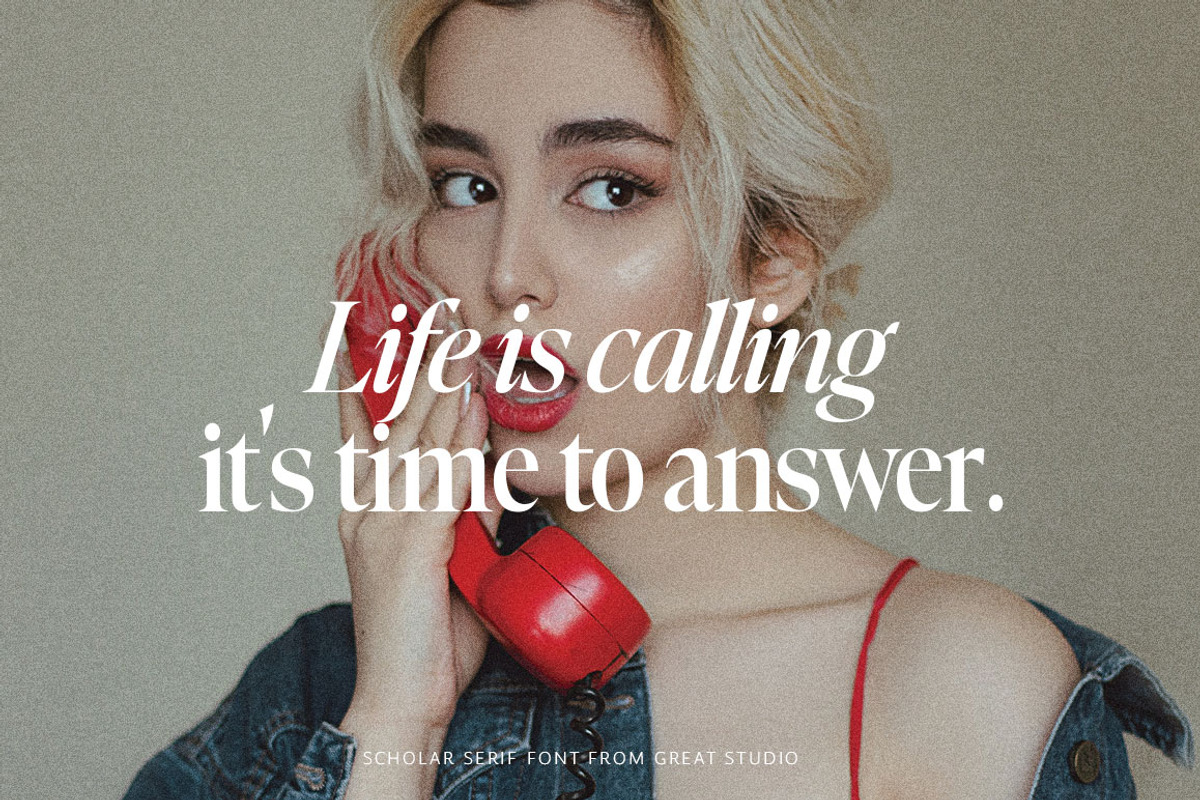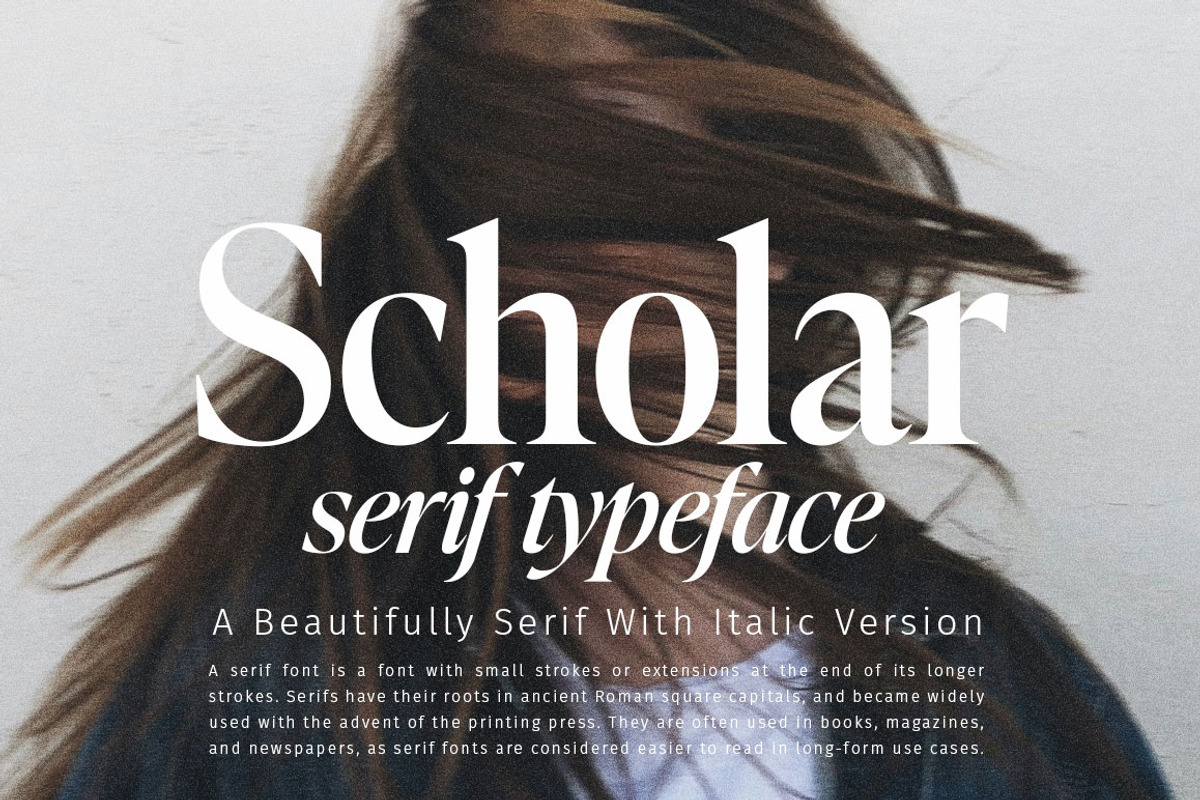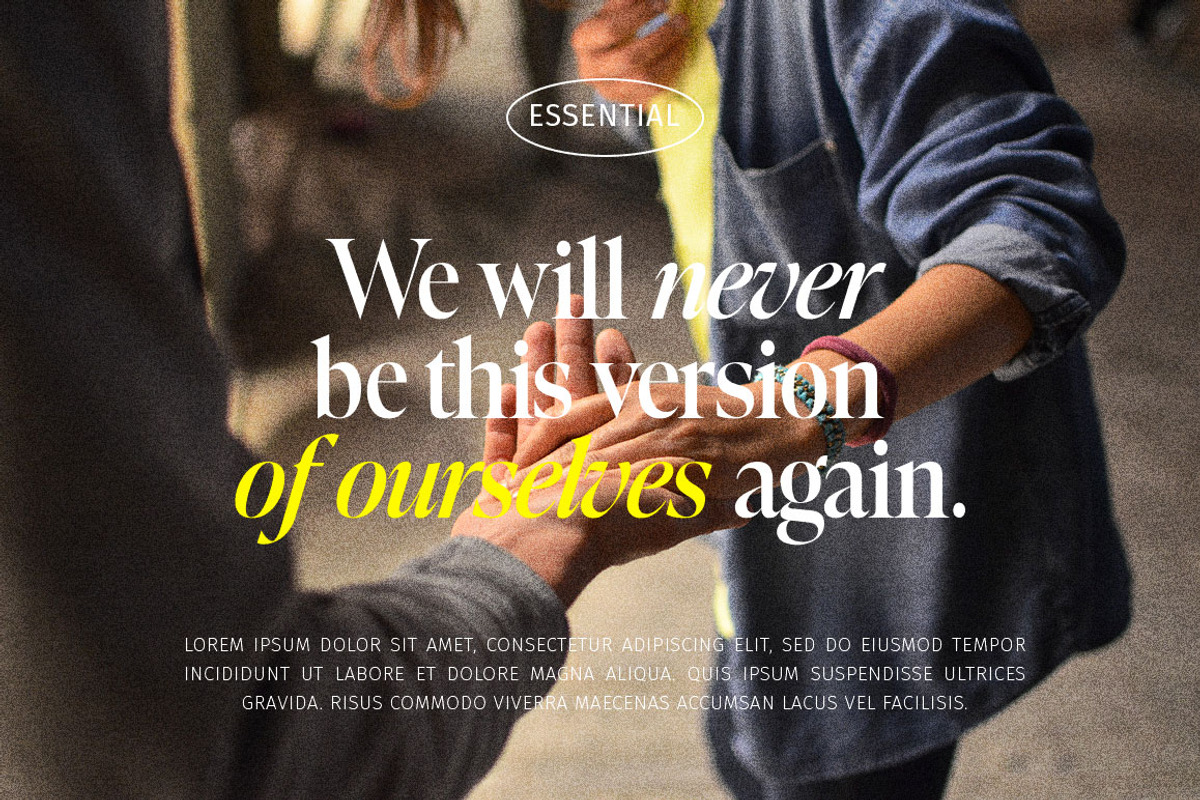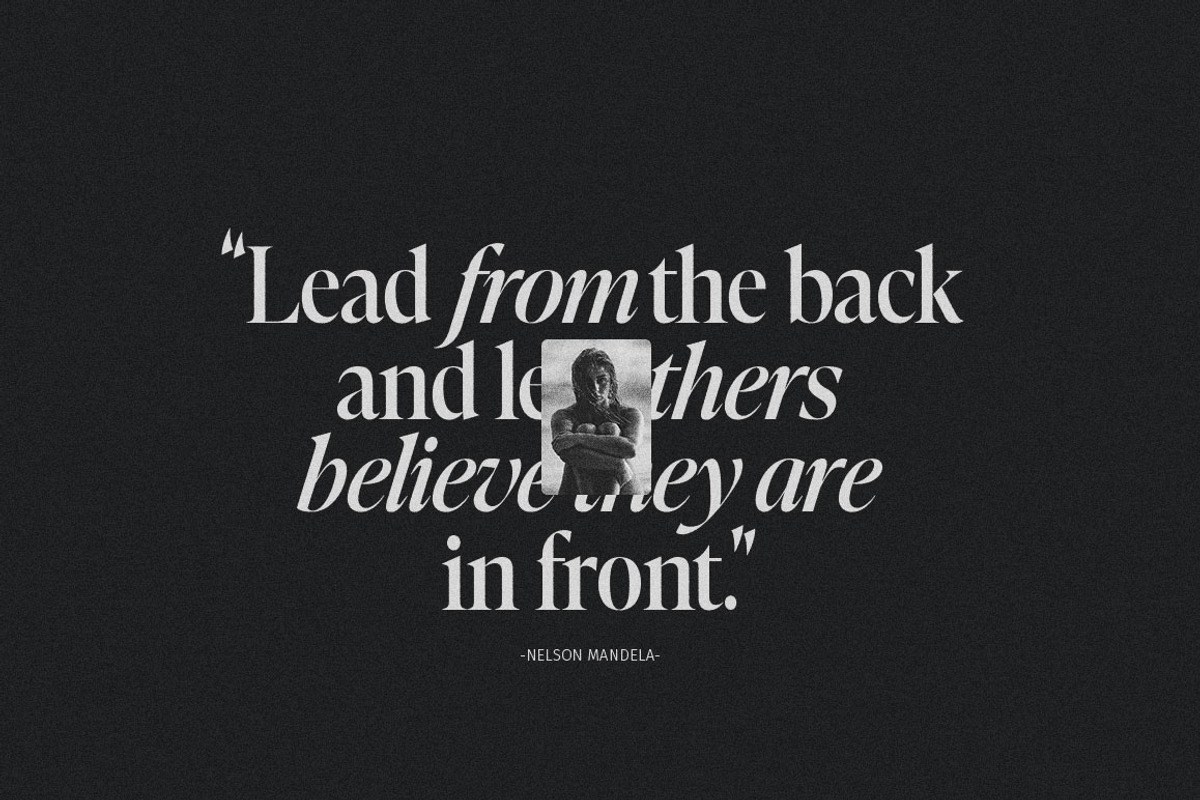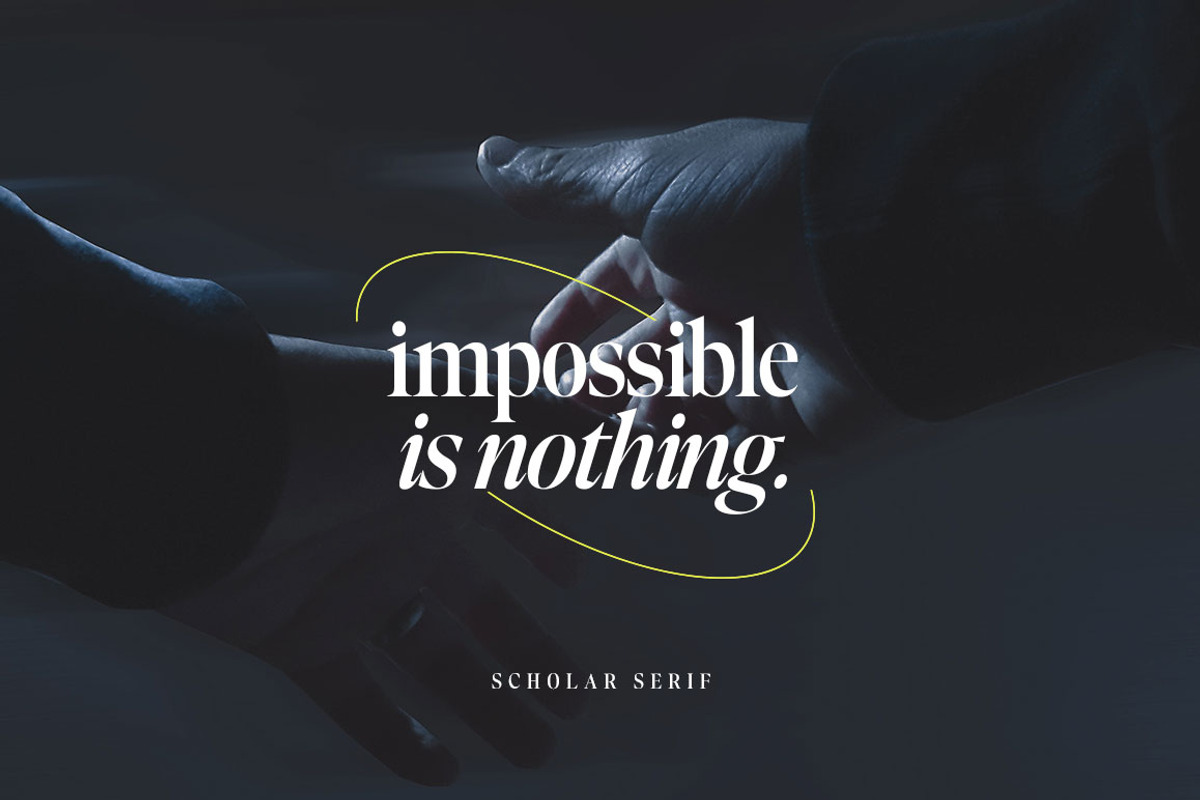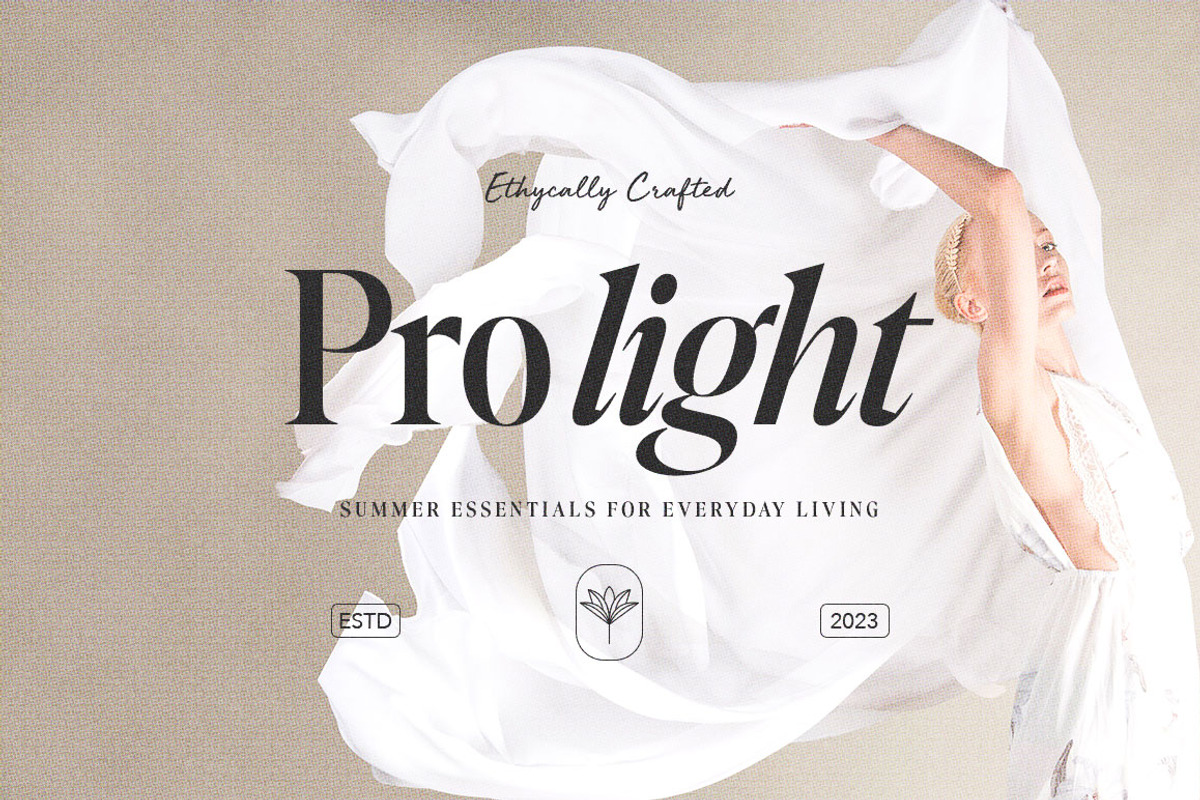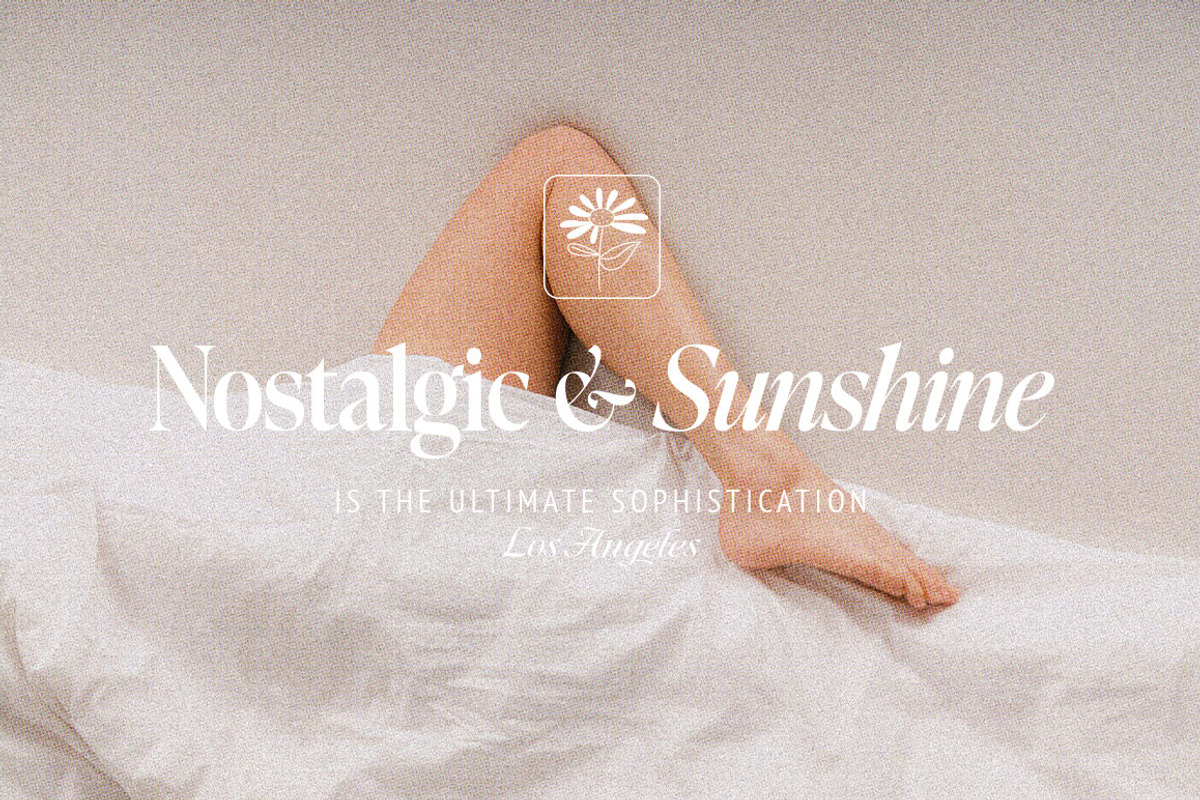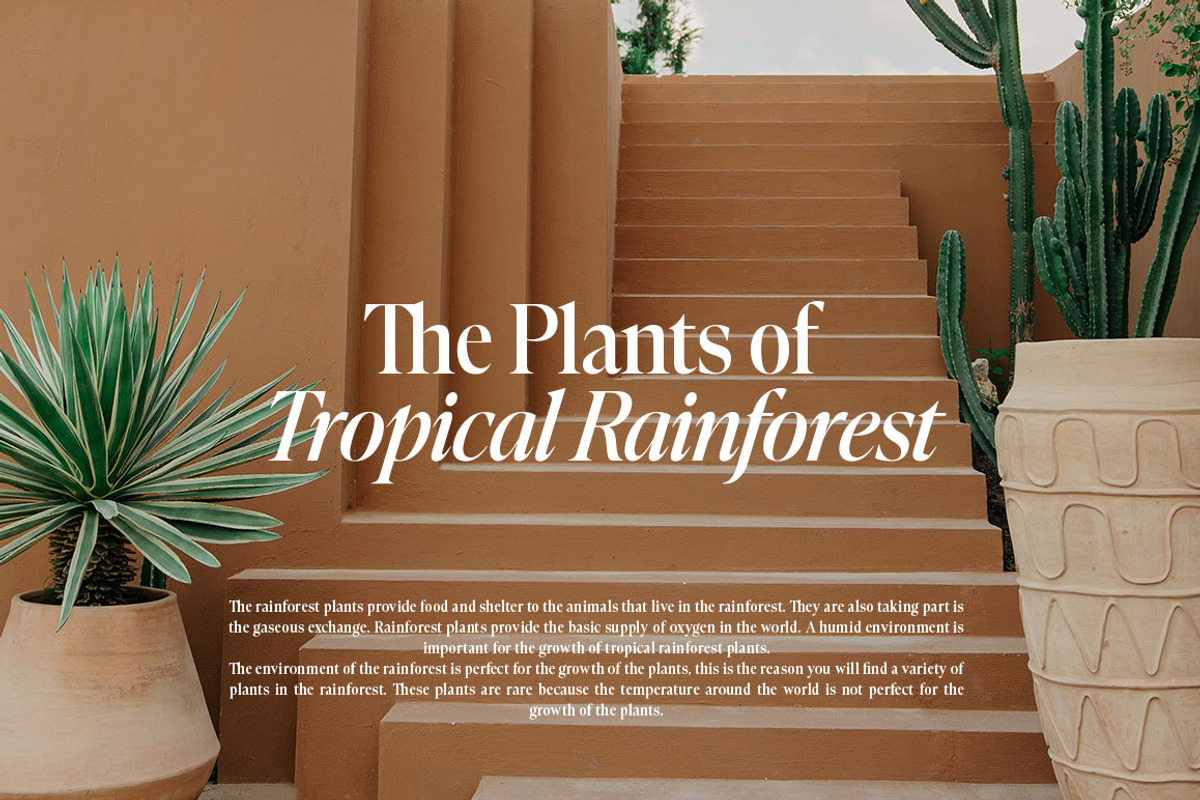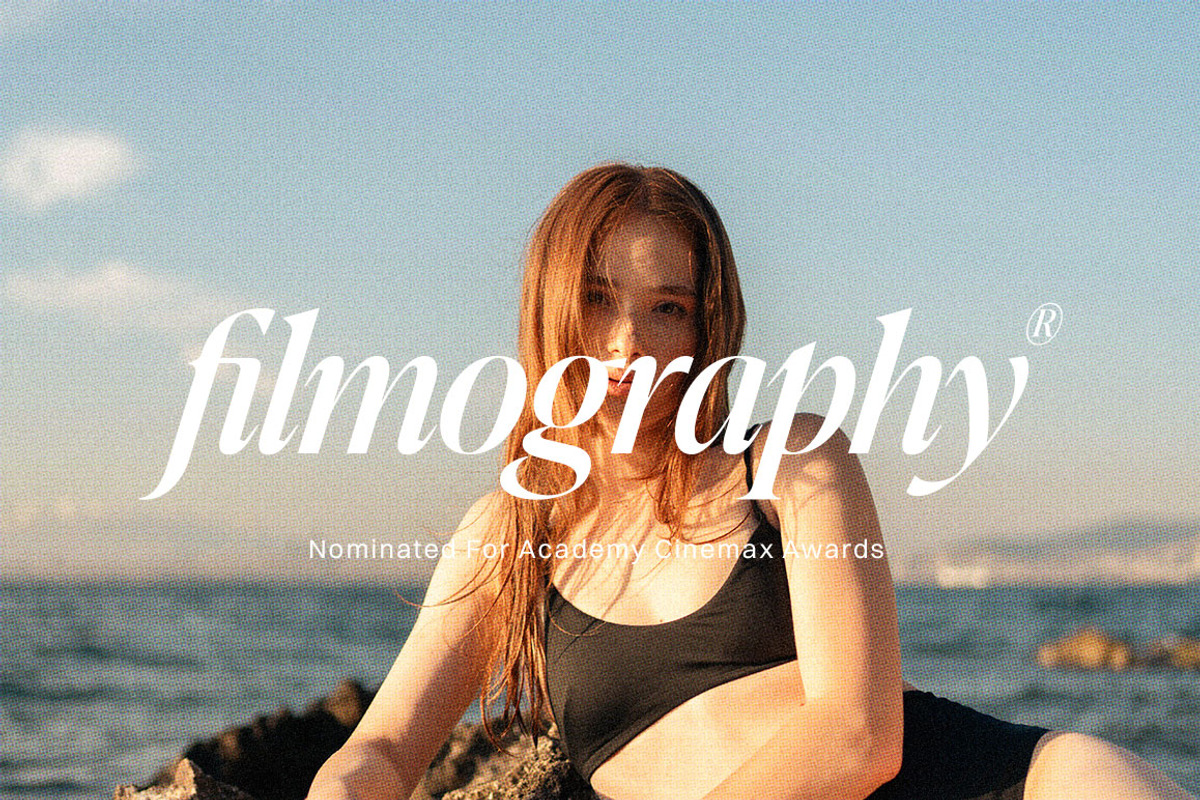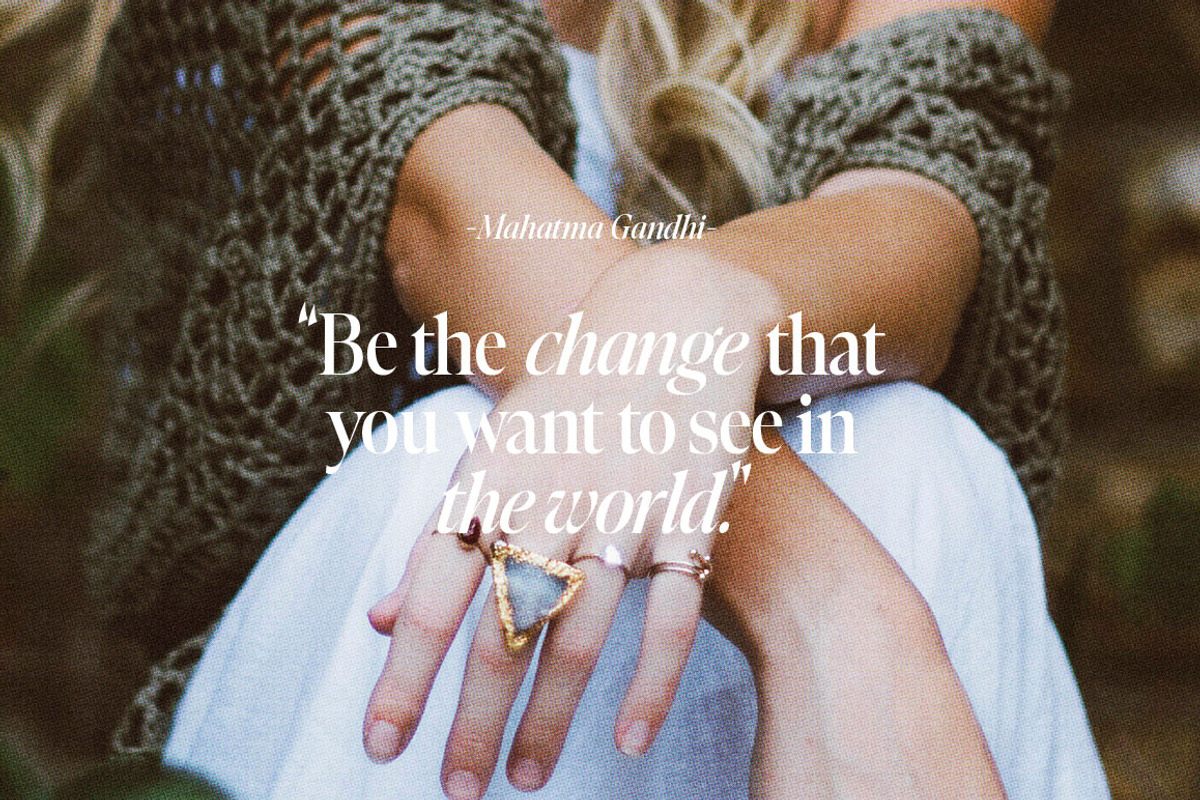
Scholar Serif Typeface
Scholar is a new editorial serif with clean and smooth lines, tight curves, and subtle yet sharply contrasting serifs. It is a typeface series that exudes elegance and confidence.
Scholar comes in two font versions: Regular and Italic. It is designed perfectly to meet all your needs, whether you're creating nostalgic designs that remain clean and elegant, or working on projects like headlines, magazines, logos, packaging, editorials, and more.
• All Uppercase and Lowercase
• Number & Symbol
• 200+ Supported Languages (Latin Pro)
• Standard Ligatures